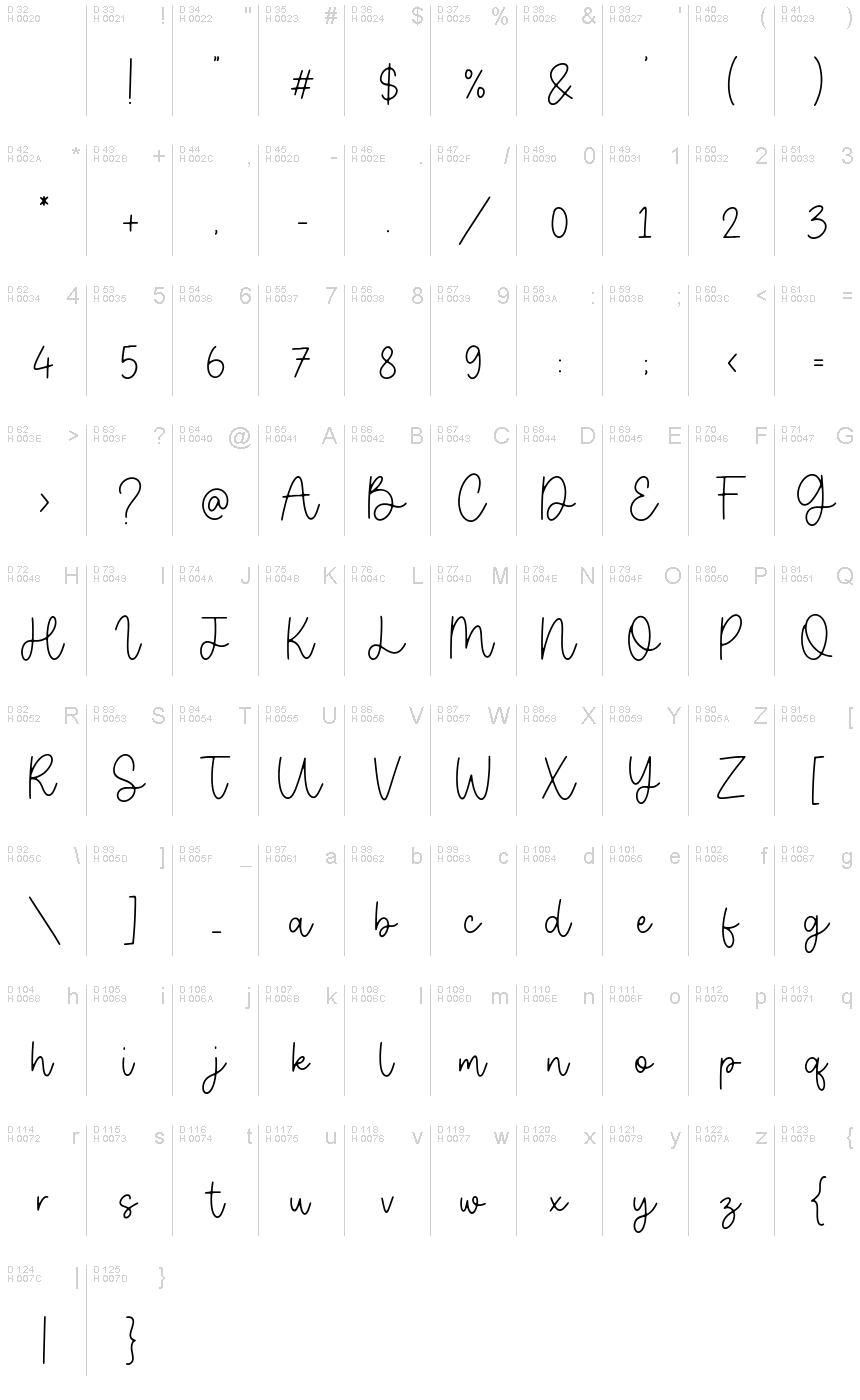
Amberstone
Amberstone, designed by the talented Timur Type, offers a warm and inviting handwritten style that is as versatile as it is beautiful. The semi-light weight of this font gives it a delicate and approachable feel, making it perfect for a wide range of creative projects. Its aesthetic appeal lies in its fluidity and natural elegance, reminiscent of personal correspondence with a touch of sophistication.
This font's casual yet polished appearance makes it an excellent choice for branding, invitations, and editorial designs seeking a personal touch without sacrificing professionalism. Amberstone's charm will undoubtedly enhance any project that requires the distinctive flair of handcrafted artistry combined with the ease of digital design.